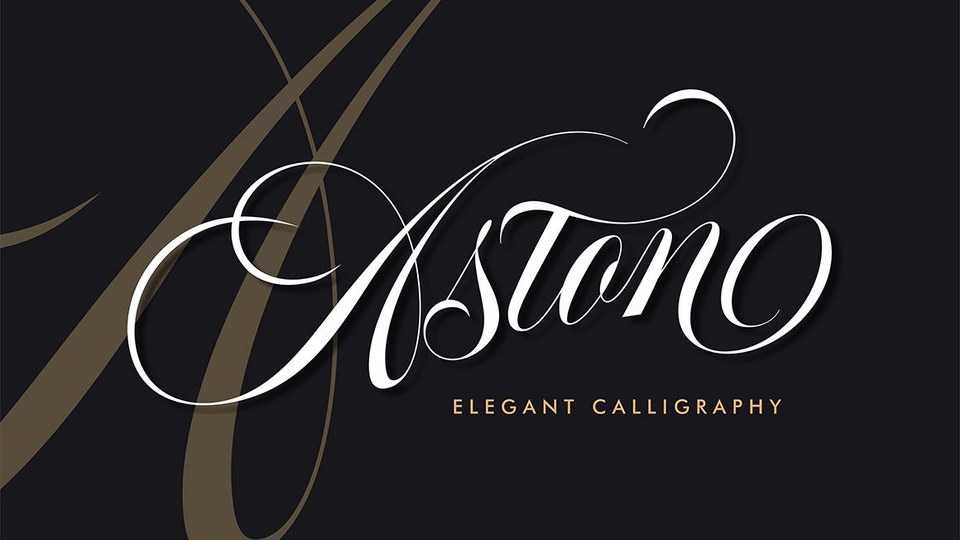
Download Aston Script, font a stunning calligraphy typeface that comes with beautiful changing characters, a kind of classic decorative script with a modern touch, designed with high detail to bring stylish elegance.
Designer: Teuku Riski Firmana